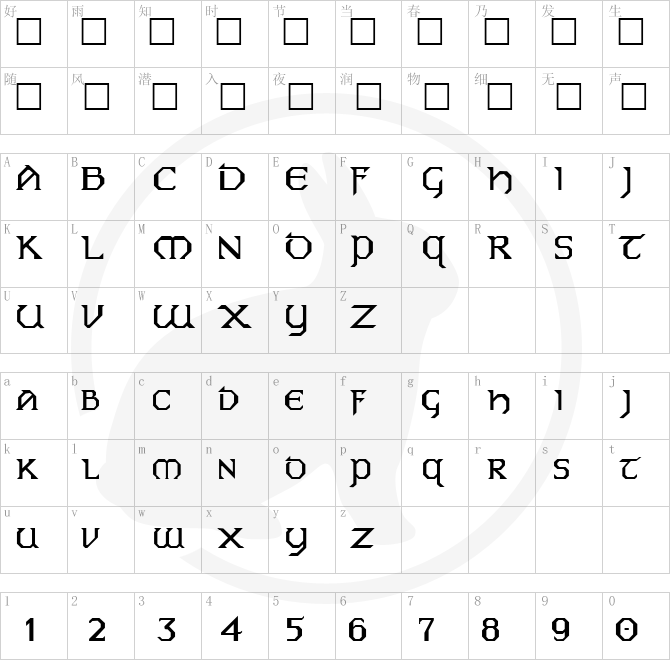
- Font Name:EARLENE
EARLENE-Regular.ttf is a very beautiful artistic font, EARLENE-Regular.ttf is widely used in the design and printing of various books and pictures,EARLENE-Regular.ttf has a strong visual impact,EARLENE-Regular.ttf is a commonly used font in newspapers, magazines and books, and is used in posters, e-commerce Poster design, store design, logo design, font design and other fields.EARLENE-Regular.